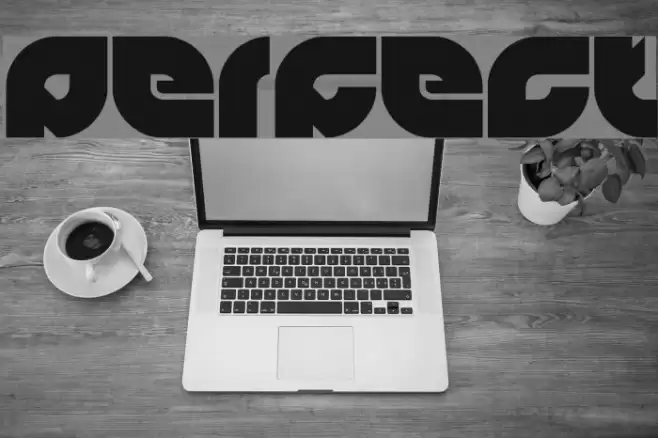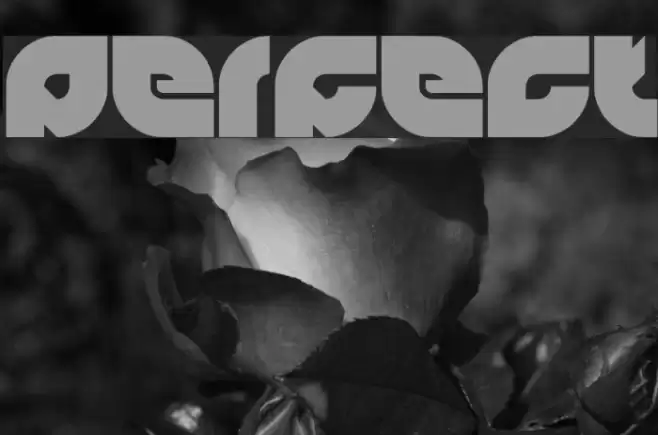
perfect Font
perfect Description
This font features a bold, geometric design with a futuristic aesthetic. Each character is crafted with thick, block-like strokes, creating a strong visual impact. The letters are uniformly wide, with rounded edges that soften the overall look. The design is highly stylized, with unique cutouts and angles that give it a distinct, modern feel. The uniformity in stroke width and the absence of serifs contribute to its clean and contemporary appearance. This font is ideal for making a statement, with its eye-catching and unconventional style.
A bold, geometric font with a futuristic and modern design from Uncategorized fonts.
- Proposed Projects: Ideal for branding, logos, posters, and any project requiring a strong, modern visual impact.